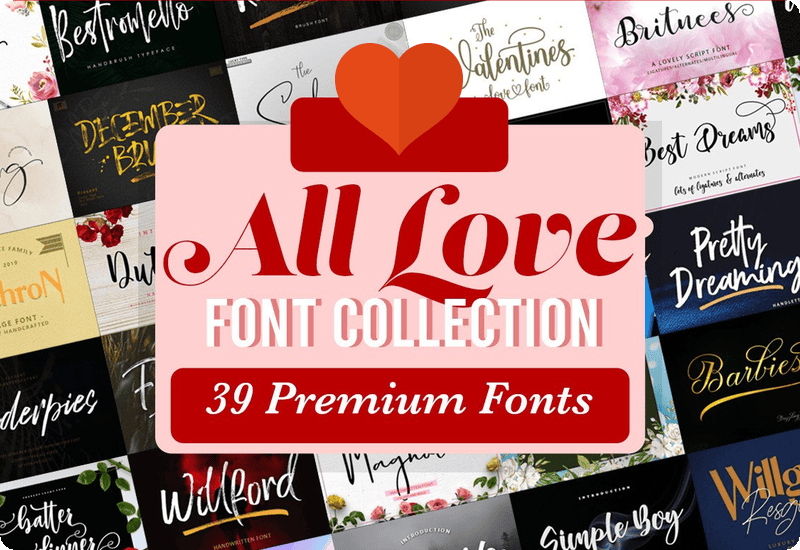
Featured Fonts in the Collection:
- Bridal Ceremony Script & Handwritten Font
- Pretty Dreaming Script & Handwritten Font
- The Valentines Script & Handwritten Font
- Southside Script Script & Handwritten Font
- Smoltimes Script & Handwritten Font
- December Brush Script & Handwritten Font
- Sunny Script Script & Handwritten Font
- Hello Freshtea Script & Handwritten Font
- Willford Script & Handwritten Font
- Batter Dinner Script Script & Handwritten Font
- Fabullous Script Script & Handwritten Font
- Lovely Buttering Script & Handwritten Font
- Simple Boy Script & Handwritten Font
- The Solmate Script Script & Handwritten Font
- Amstrong Script Fuentes Caligráficas Fuente
- Barbies Script Script & Handwritten Font
- Wild Smith Script & Handwritten Font
- Important Element Script & Handwritten Font
- Lonelly Girl Script & Handwritten Font
- Casttelya Script & Handwritten Font
- Hello Kindess Script & Handwritten Font
- Winnie Marrie Script & Handwritten Font
- Buttergone Script & Handwritten Font
- Mikaella Script & Handwritten Font
- Magnolia Hand Script & Handwritten Font
- Red Blues Script & Handwritten Font
- Big Love Script & Handwritten Font
- Bestromello Script & Handwritten Font
- Fregiselle Script & Handwritten Font
- Spiderpies Script & Handwritten Font
- Resgold Willgets Script & Handwritten Font
- Best Dreams Script & Handwritten Font
- Bettside Script & Handwritten Font
- Brightline Script & Handwritten Font
- Duttane Script Script & Handwritten Font
- Maxthron Family Display Font
- Britnees Script Script & Handwritten Font
- Bellgonate Script Script & Handwritten Font
- Beauties Bright Script & Handwritten Font
Each font is meticulously designed to bring your ideas to life, whether you’re looking for a modern touch or a vintage feel.
Perfect Fonts for Every Occasion
From elegant wedding scripts to playful handwritten styles, this bundle includes a font for every project. The Bridal Ceremony Script adds a touch of sophistication to wedding invitations, while the Pretty Dreaming Script brings a whimsical feel to greeting cards. The Valentines Script is perfect for romantic designs, and the Southside Script adds a bold flair to logos and posters. No matter the occasion, you’ll find the perfect font to express your creativity.